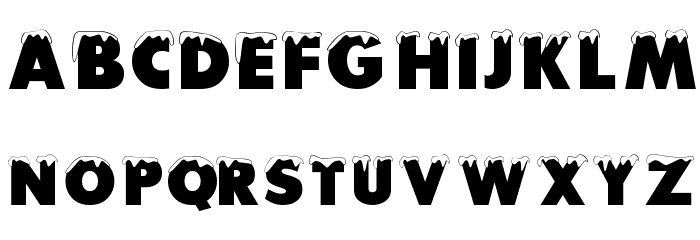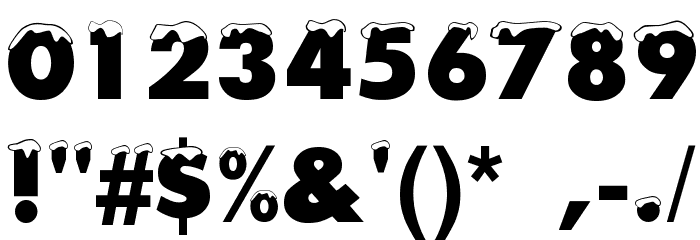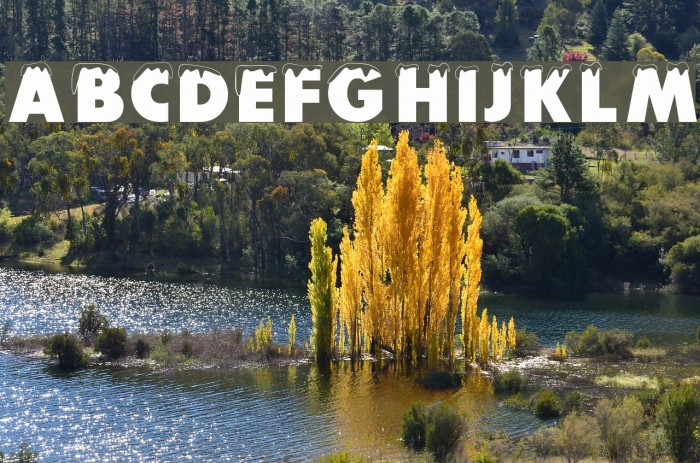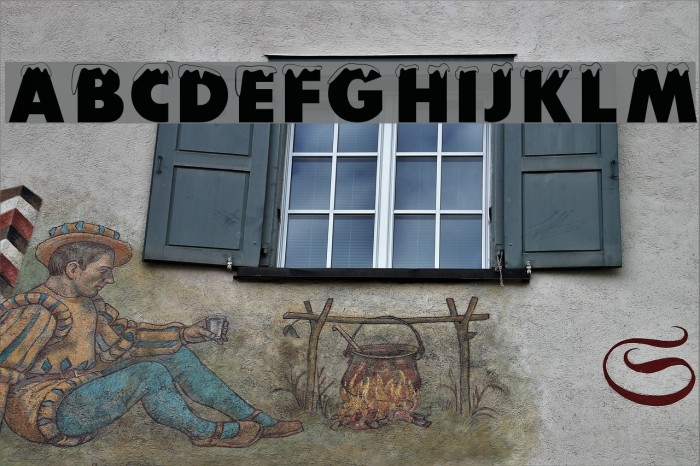
Snowy Plain Font
This playful and whimsical font features bold, uppercase and lowercase letters adorned with snow-like accents on top, creating a wintery, festive feel. The characters are thick and robust, with a uniform width that gives them a strong presence. The snow caps add a decorative touch, making it ideal for holiday-themed projects. The numbers and special characters maintain the same snowy embellishments, ensuring consistency across all glyphs. This font is perfect for capturing the essence of winter and holiday cheer, making it a great choice for seasonal designs.
A bold, decorative font with snow-capped letters, perfect for festive designs.
- Proposed Projects: Ideal for holiday cards, winter event posters, festive banners, and seasonal branding.